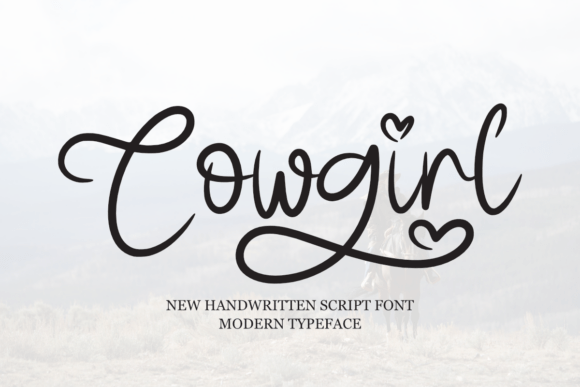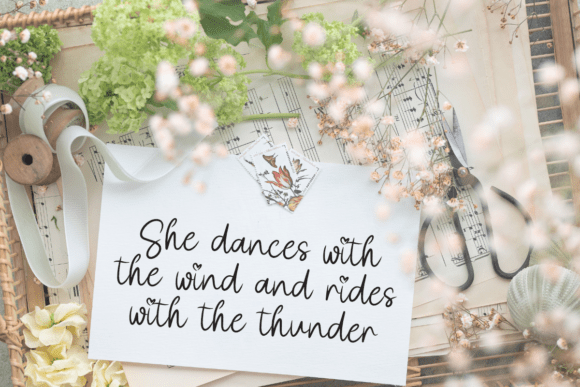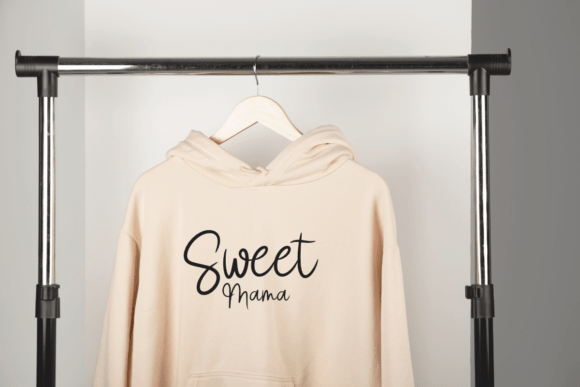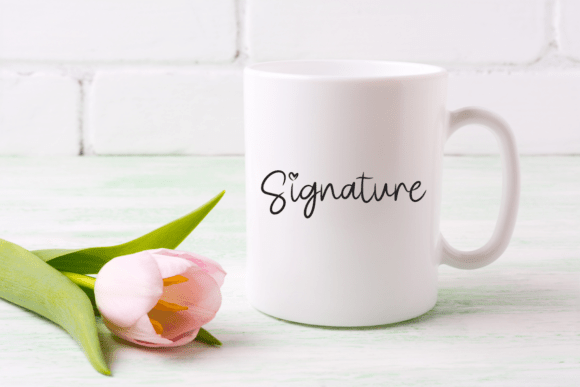
Cowgirl Font
About the Cowgirl Font
Step up your design game with Cowgirl Font, a font that exudes confidence and style. Cowgirl is a modern handwritten script font that brings a touch of elegance and warmth to any design. With its smooth lines and flowing curves, this font is perfect for wedding invitations, nursery decor, greeting cards, branding, wall art, tumbler, sticker, cricut and other lovely creations.
Cowgirl’s elegant yet approachable style makes it ideal for branding projects requiring a touch of rustic charm, particularly for businesses related to fashion, beauty, or artisanal goods. It also excels in short-form applications like logos, headlines, and social media graphics. However, its script nature makes it less suitable for body text or UI elements where readability is paramount. Avoid using it for lengthy paragraphs or in small sizes.
To complement Cowgirl’s organic feel, consider pairing it with a clean sans-serif like Montserrat for a modern contrast, or a classic serif such as Playfair Display for a more traditional balance. A geometric sans-serif, like Futura, could also create a striking juxtaposition, offering a contemporary edge.
The font’s overall personality is best described as sophisticated yet friendly; it conveys a sense of warmth and approachability without sacrificing elegance.